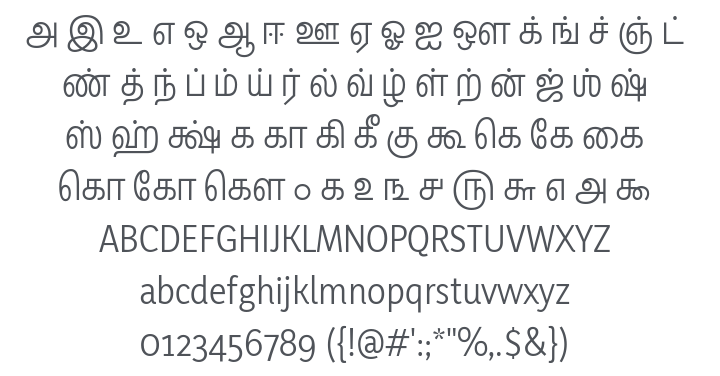
Yaldevi Jaffna Font Family
by Mooniak
About Yaldevi Jaffna
Yaldevi is designed for display use, such as headlines, subheads, and short paragraphs, such as pull quotes. The almost neutral personality has a touch of whimsicality with the soft and smooth curves. The lighter weights are pleasingly beautiful and stylish, making it a delightful headline font. Slightly condensed shapes and dimensions make it possible to fit more text into single lines. The name means ‘Princes of Jaffna’ in Tamil and Sinhala, and is taken from the name of the intercity train in Sri Lanka that runs between Colombo and the Northern city of Jaffna.
Yaldevi Colombo includes Sinhala and Latin glyphs, and some peculiar and experimental shapes that were invented to enhance the performance as a display typeface. Yaldevi Jaffna includes Tamil and Latin glyphs, and is designed with open counters and an overall friendly feel. Both are available in 6 weights, ExtraLight to ExtraBold, and can be used together in multilingual projects as they share the same vertical metrics. The Sinhala is designed by Denzil Rajitha, the Tamil by Pathum Egodawatta and Kosala Senevirathne, and the Latin by Sol Matas.